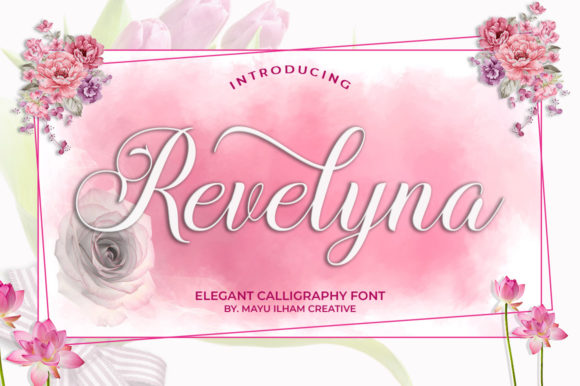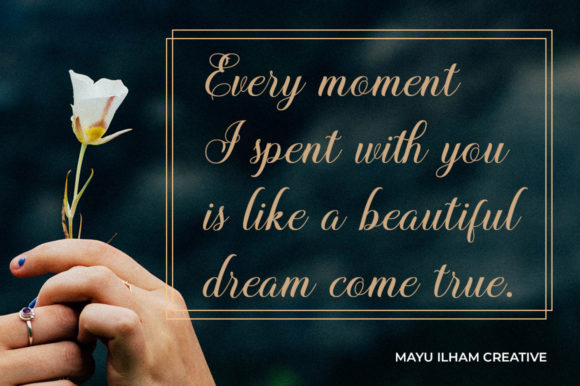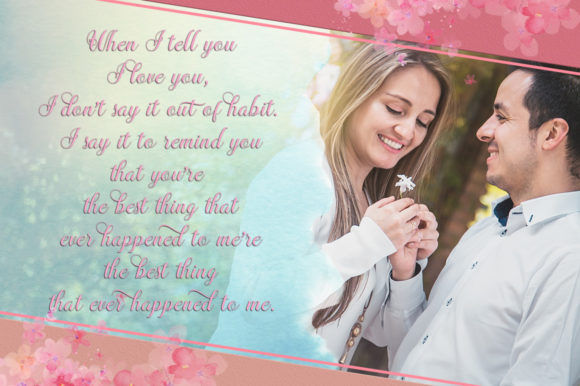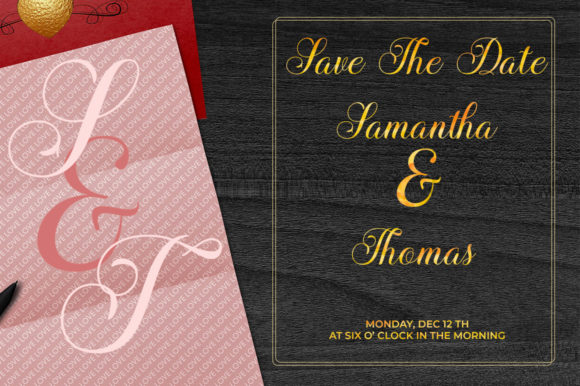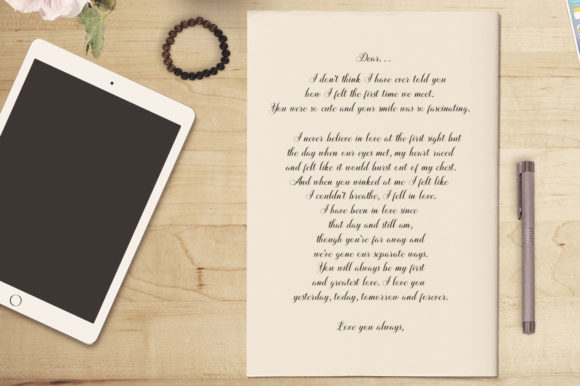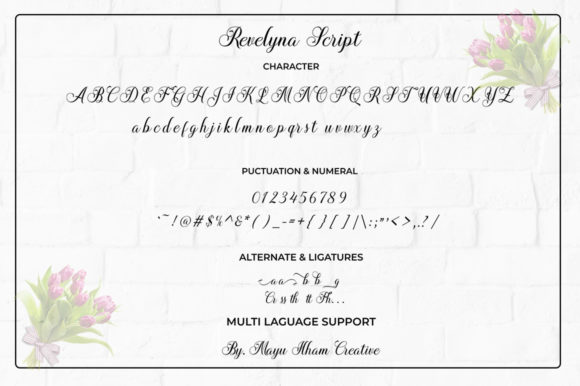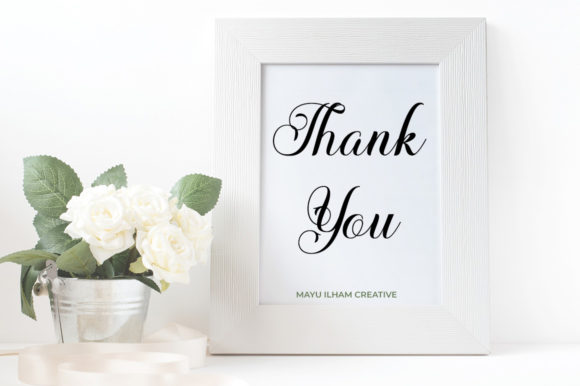
Revelyna Font
About Revelyna Font
The Refelyna is a beautiful calligraphy script. It will add elegance and style to all your creative designs! This gorgeous script is suitable for any design that needs a romantic and classic appeal.